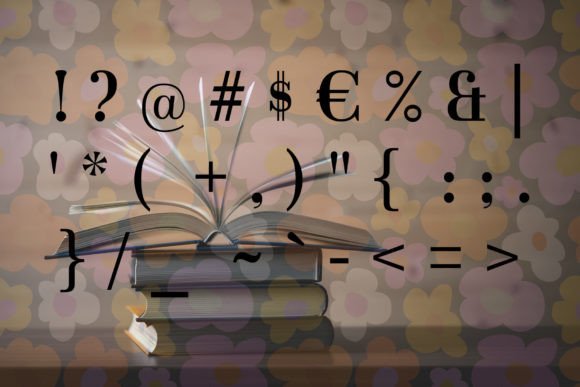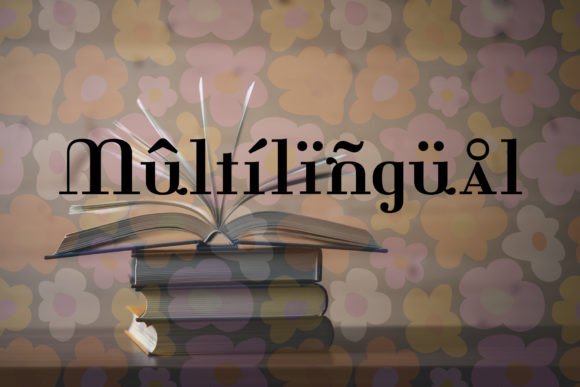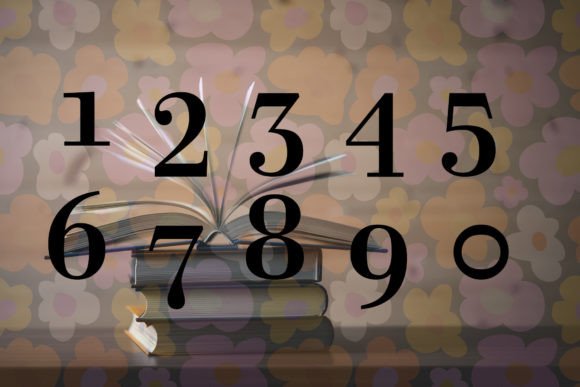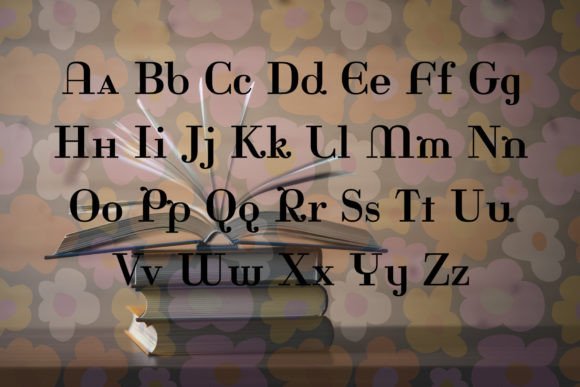
Introduction to Rita Font
Rita is a modern and cool serif font.
Its unique style is suitable for a wide range of design ideas Add it confidently to your projects and you will love the results.
Key Features of Rita Font
Why Choose Rita Font?
Rita Font offers exceptional quality and versatility, making it a valuable addition to your design toolkit. Whether you’re creating for personal projects or commercial use, Rita Font delivers professional results.